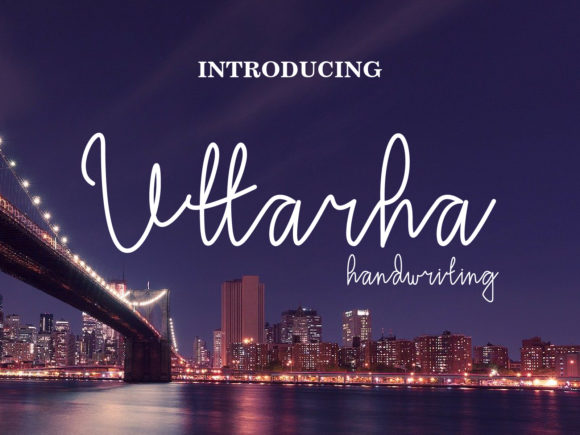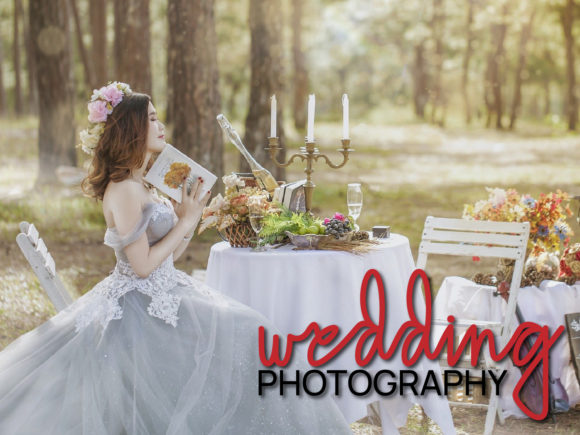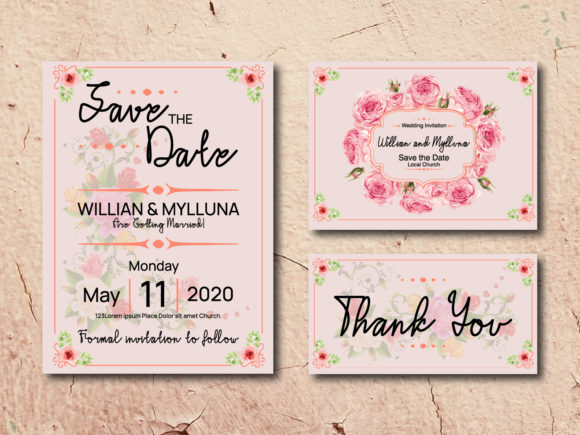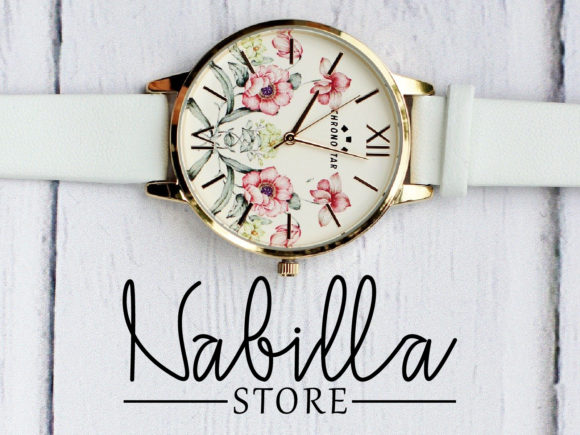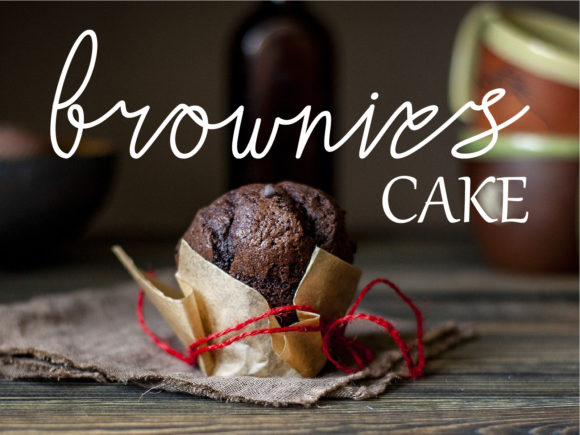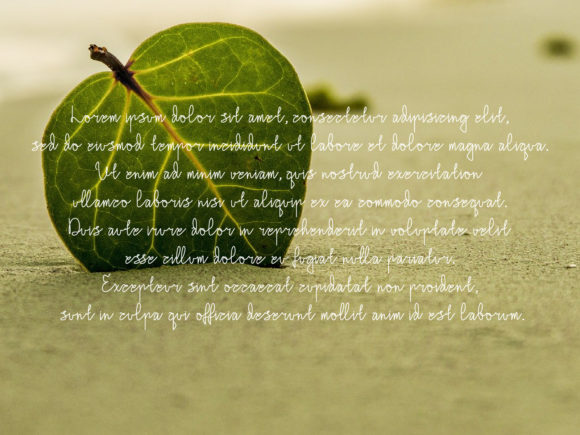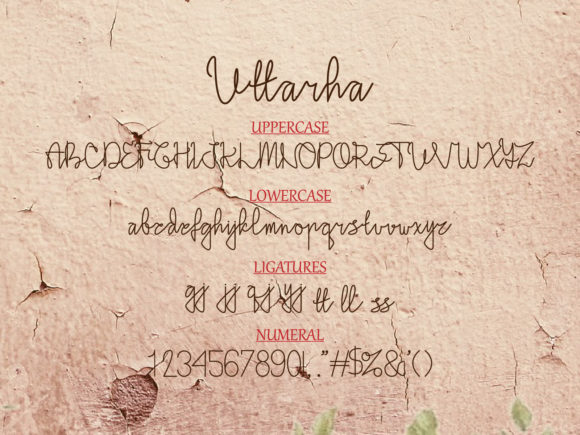
Uttarha Handwriting Font
About Uttarha Handwriting Font
Uttarha Handwriting is a cute and casual handwritten font with an incredibly friendly feel. It features gorgeous swashes and ligatures that make this script incredibly versatile.